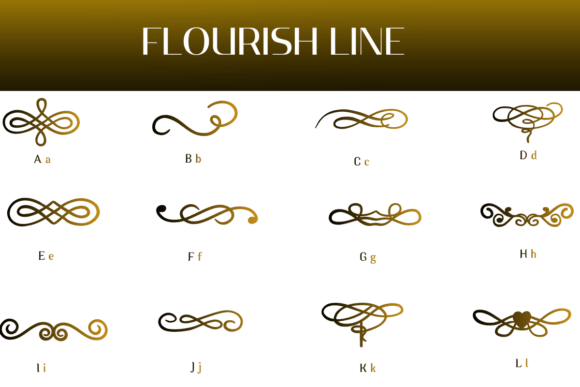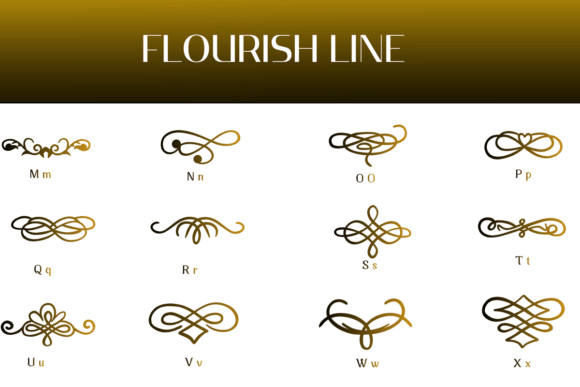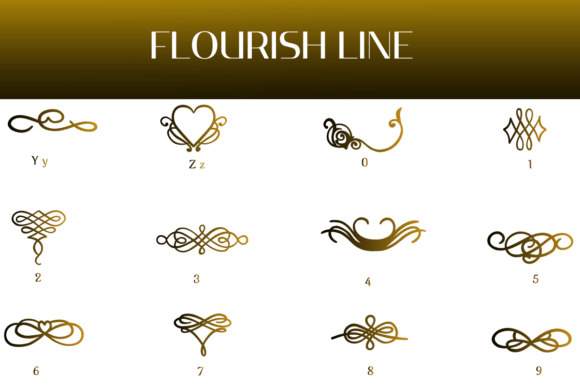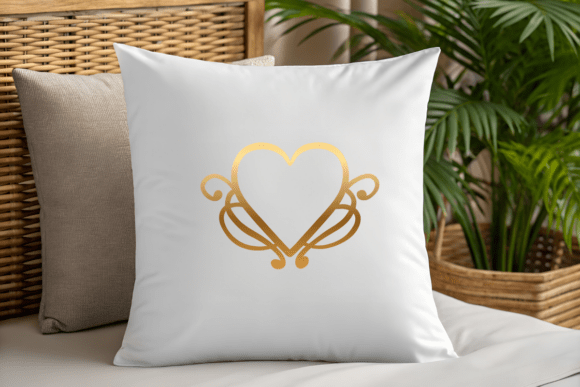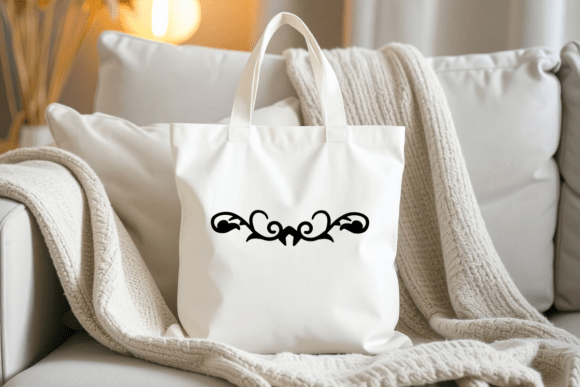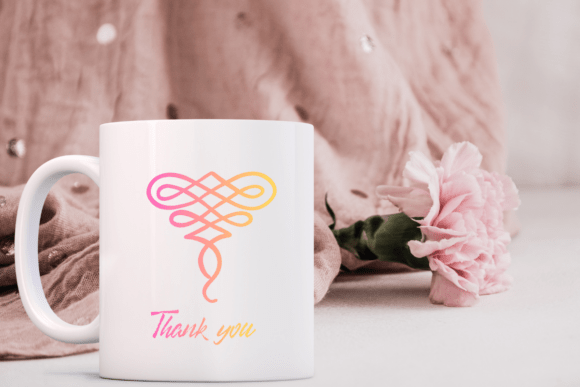
Introduction to Flourish Line Font
Have you ever stared at a blank canvas, struggling to find the perfect font to bring your creative project to life? You know the feeling – the blank page stares back at you, taunting you to make a decision. But what if you stumbled upon a font that could make your designs pop, adding an extra layer of magic to your work?
Enter the Flourish Line Font – a stunning dingbats font that’s sure to elevate your creative projects. With its unique blend of whimsy and sophistication, this font is a game-changer for designers. Whether you’re working on a graphic design project or creating digital art, the Flourish Line Font is a valuable resource that can take your work to the next level.
Key Features of Flourish Line Font
- High-quality design for a creative project, ideal for illustrations and graphics.
- Features a transparent background, enabling seamless integration into any design.
- Unique flourish lines add a decorative touch to any design, setting it apart from other fonts.
- Perfect for use in digital and print media, including logos, icons, and graphics.
Honest Review: Flourish Line Font
As a designer, I’m always on the lookout for high-quality design resources to elevate my creative projects. Recently, I had the chance to work with the Flourish Line Font, and I’m excited to share my honest review with you.
- ✨ Beautiful, elegant lines that add a touch of sophistication to any design
- ✨ Easy to use, even for non-designers, thanks to its intuitive and simple design
- ✨ High-quality vector format ensures crisp, clear lines that scale well
- ⚠️ Limited font styles and weights available (currently only 3 styles)
- ⚠️ Not suitable for bold or heavy typography, as it can become too delicate
How to Use Flourish Line Font
Flourish Line Font Overview
The Flourish Line Font is a high-quality design resource that offers a unique and creative touch to any project. With its transparent background, this font can be easily integrated into various design applications.
Tips for Getting the Most Out of Flourish Line Font
Experiment with different font sizes, colors, and combinations to achieve the desired effect. Use the transparent background to create visually appealing compositions.
The Flourish Line Font is ideal for:
- Event signage and banners
- Infographics and visual aids
- Brand identity and logo design